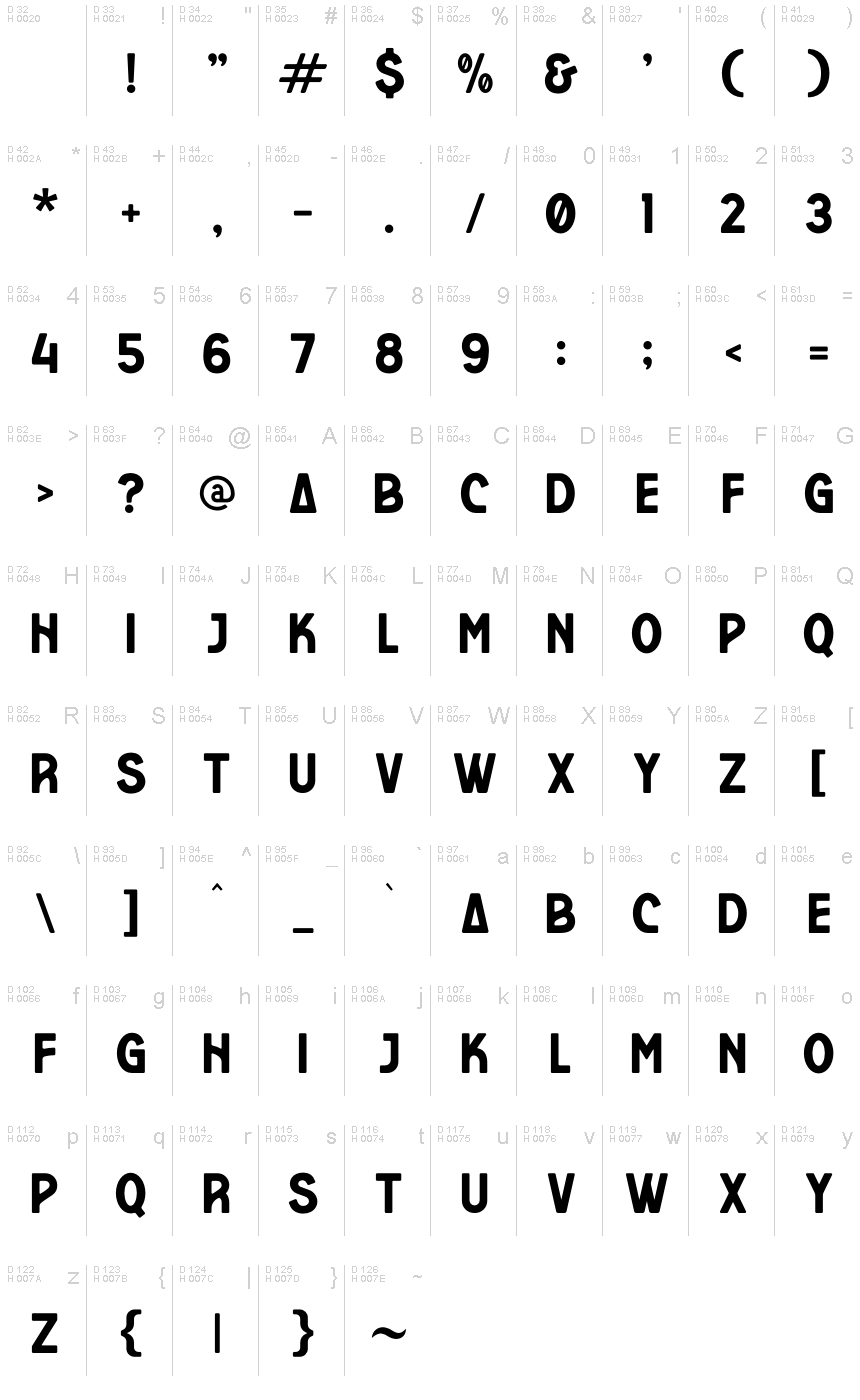
ROMALIKA
Romalika, a bold and condensed display font crafted by Storytype Studio, radiates a captivating retro aesthetic. This typographic masterpiece boasts a striking, angular design that immediately commands attention. The font's robust character shapes and compact width lend it a sturdy, authoritative presence, while its distinctive flourishes add a touch of vintage charm. Romalika's bold, unapologetic style makes it a natural choice for attention-grabbing headlines, eye-catching logos, and impactful branding applications.
Romalika's versatile nature allows it to seamlessly integrate into a wide range of design contexts. Its bold, condensed form lends itself well to packaging design, where its strong presence can help products stand out on crowded shelves. In the realm of editorial design, Romalika's dynamic character can enliven section titles, pull quotes, and cover designs, infusing them with a captivating retro flair. Whether employed in digital media, print materials, or signage, Romalika's unique personality is sure to leave a lasting impression on audiences.